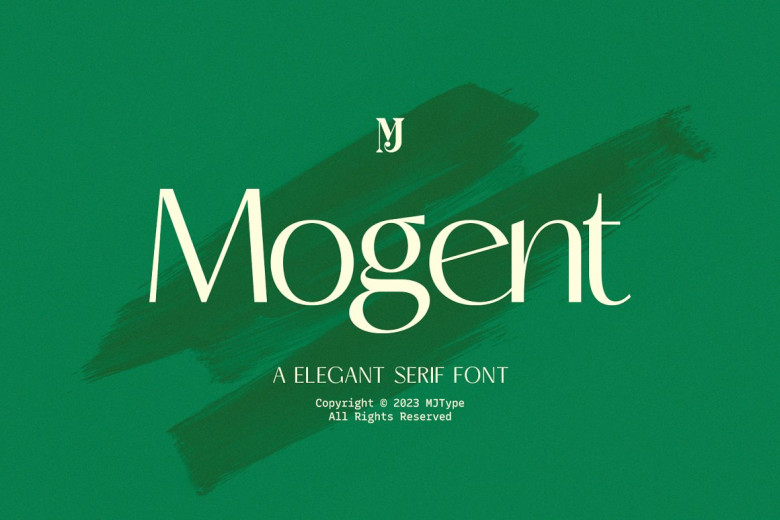
Mogent Font
Mogent our stunning serif font that effortlessly marries elegance and modern flair, is now available. With refined letterforms and balanced proportions that lend it the perfect balance of elegant sophistication and contemporary flare.
Mogent is inviting ambience adds glamour and sophistication to editorial designs, logos and packaging projects, further strengthening typography skills while adding beauty and grace to imaginative compositions.
Mogent Sans Serif Font